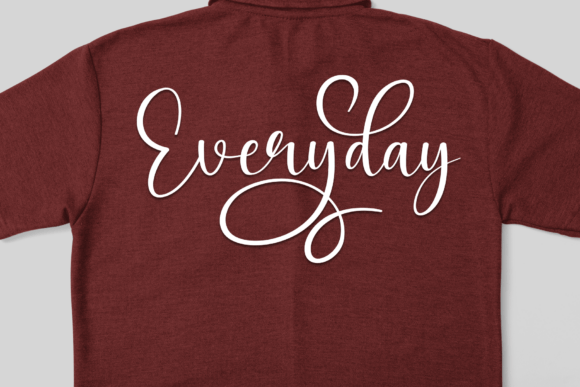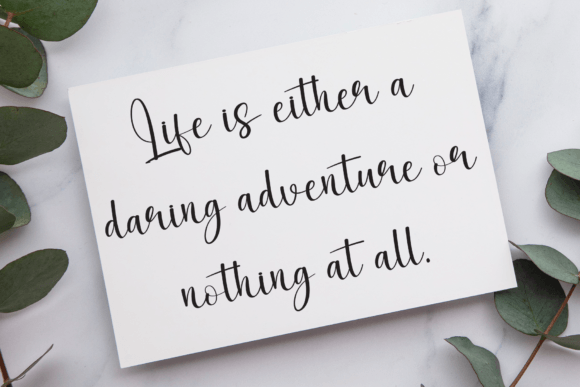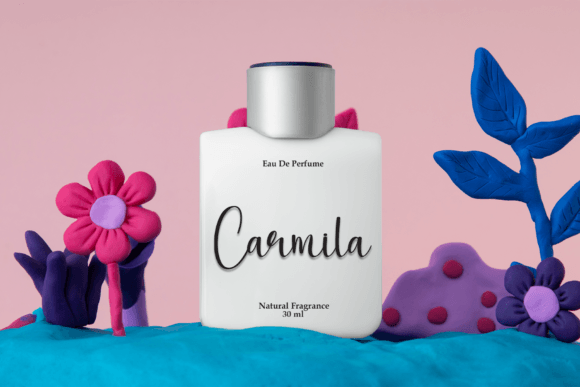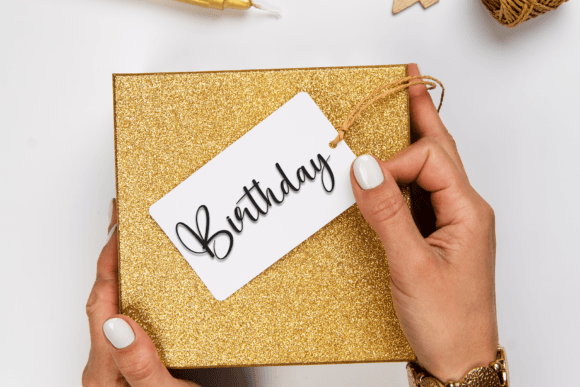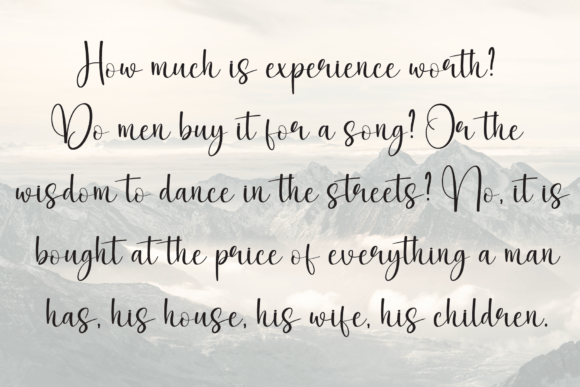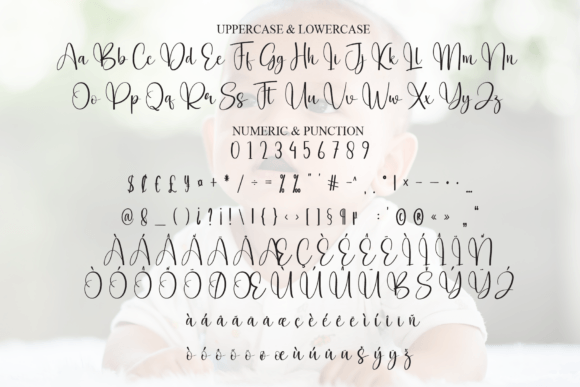
Babyface Font: The Perfect Addition to Your Holiday Designs
Are you looking for a font that embodies the spirit of the holiday season? Look no further than the Babyface font. This beautiful and festive script font is perfect for adding a touch of elegance and whimsy to your holiday cards, decorations, and designs. With its smooth curves and stylish look, Babyface is sure to become a favorite among designers and crafters alike.
What is Babyface Font?
Babyface is a hand-drawn script font that features elegant, flowing letters with a cheerful and festive feel. Its unique, cursive style is reminiscent of traditional holiday cards and decorations, making it the perfect choice for designers looking to add a touch of nostalgia to their work. Whether you’re creating holiday cards, gift tags, or decorations, Babyface font is sure to add a warm and magical touch to your project.
Key Features of Babyface Font
- Hand-drawn style: Babyface font features a unique, hand-drawn style that gives it a personal and elegant feel.
- Elegant, flowing letters: The font’s smooth, cursive letters are perfect for creating beautiful, flowing text that adds a touch of sophistication to any design.
- Festive and cheerful: Babyface font is perfect for holiday designs, with a festive and cheerful feel that’s sure to put a smile on anyone’s face.
- Perfect for designs: Whether you’re creating holiday cards, decorations, or gift tags, Babyface font is the perfect choice for adding a touch of elegance and whimsy to your work.
Uses for Babyface Font
Babyface font is a versatile font that can be used for a variety of design projects. Here are a few ideas to get you started:
- Holiday cards: Add a touch of elegance and whimsy to your holiday cards with Babyface font.
- Decorations: Use Babyface font to create beautiful, festive decorations for your home or office.
- Gift tags: Add a personal touch to your gifts with Babyface font, perfect for creating beautiful, handmade gift tags.
- Social media graphics: Use Babyface font to create festive and cheerful social media graphics that are sure to stand out.
Tips for Using Babyface Font
Here are a few tips for getting the most out of Babyface font:
- Use it sparingly: Babyface font is a statement font, so use it sparingly to add a touch of elegance and whimsy to your design.
- Pair it with other fonts: Experiment with pairing Babyface font with other fonts to create a unique and interesting look.
- Experiment with colors: Try out different colors and textures to add depth and interest to your design.
In conclusion, Babyface font is a beautiful and festive script font that’s perfect for adding a touch of elegance and whimsy to your holiday designs. With its smooth curves and stylish look, Babyface is sure to become a favorite among designers and crafters alike. Whether you’re creating holiday cards, decorations, or gift tags, Babyface font is the perfect choice for adding a warm and magical touch to your project.
- What type of font is Babyface?: Babyface is a script font with a hand-drawn style.